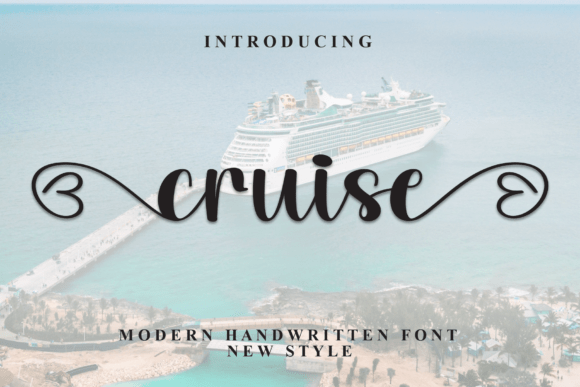
Cruise Font: Elevate Your Design with Elegance and Playfulness
Cruise Font is a stunning handwritten script font that seamlessly blends modern elegance with a playful touch. Its fluid strokes and charming curves bring a personal feel to any design, making it an ideal choice for creative projects. In this article, we’ll explore the features, benefits, and uses of Cruise Font, and how it can elevate your design to the next level.
Key Features of Cruise Font
- Handwritten Script Style: Cruise Font boasts a beautiful handwritten script style that adds a personal touch to any design.
- Modern Elegance: The font’s fluid strokes and charming curves give it a modern and elegant feel, perfect for sophisticated designs.
- Playful Touch: Cruise Font also has a playful side, making it suitable for designs that require a bit of whimsy and fun.
- High Versatility: This typeface is highly versatile and can be used for a wide range of design projects, from logos and packaging to invitations and more.
Ideal Design Applications for Cruise Font
Cruise Font is an excellent choice for various design projects, including:
- Logos: The font’s unique and stylish appearance makes it perfect for creating memorable and impactful logos.
- Packaging: Cruise Font can add a touch of elegance and sophistication to product packaging, making it stand out on store shelves.
- Invitations: The font’s playful and charming curves make it ideal for creating beautiful and eye-catching invitations for special occasions.
- Branding: Cruise Font can be used to create a consistent brand identity that exudes warmth, sophistication, and creativity.
Benefits of Using Cruise Font
Using Cruise Font in your design projects offers several benefits, including:
- Unique and Memorable: The font’s distinctive style ensures that your design stands out and leaves a lasting impression.
- Emotional Connection: Cruise Font’s personal and playful feel can help create an emotional connection with your audience.
- Flexibility: The font’s versatility allows you to use it for a wide range of design projects, from formal to informal.
- Ease of Use: Cruise Font is easy to read and works well in various sizes, making it a practical choice for designers.
Tips and Tricks for Using Cruise Font
To get the most out of Cruise Font, consider the following tips:
- Pair with Neutral Fonts: Pair Cruise Font with neutral fonts to create a balanced and harmonious design.
- Experiment with Colors: Try different color combinations to find the perfect match for your design.
- Use for Headings and Titles: Cruise Font works best for headings and titles, so use it to create visual interest and hierarchy in your design.
- Keep it Simple: Don’t overuse Cruise Font; keep your design simple and clean to ensure the font’s elegance shines through.
Design Inspiration with Cruise Font
Cruise Font can be used in a variety of design projects, from elegant wedding invitations to modern logos. Here are some inspiring examples:
- Wedding Invitations: Use Cruise Font to create beautiful and romantic wedding invitations that set the tone for the special day.
- Food and Beverage Branding: The font’s playful and elegant feel makes it perfect for food and beverage branding, such as restaurant logos and packaging.
- Luxury Packaging: Cruise Font can add a touch of sophistication and elegance to luxury packaging, making it perfect for high-end products.
Cruise Font is a stylish and versatile handwritten script font that can elevate your design to the next level. Its modern elegance, playful touch, and fluid strokes make it perfect for a wide range of design projects, from logos and packaging to invitations and branding. With its unique and memorable style, Cruise Font is sure to leave a lasting impression on your audience.